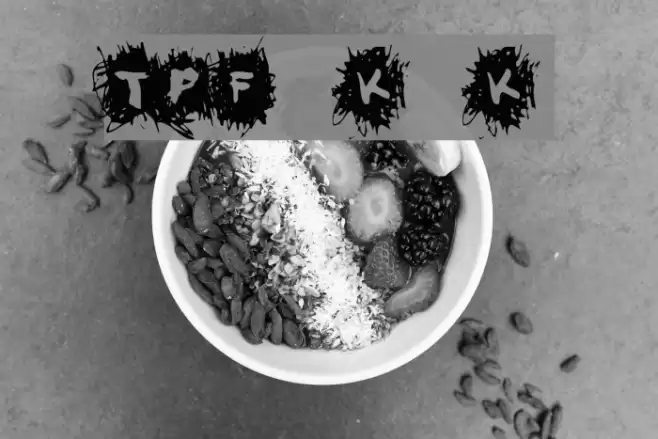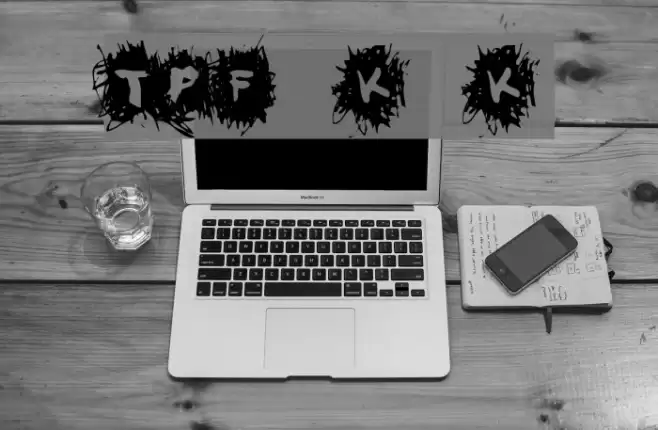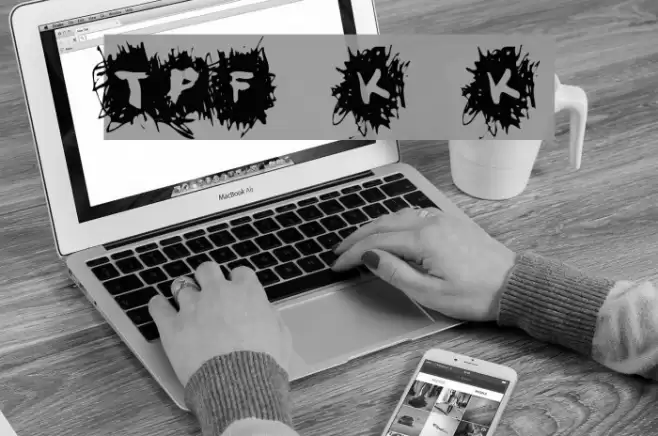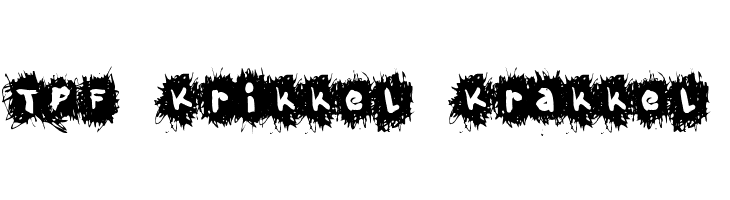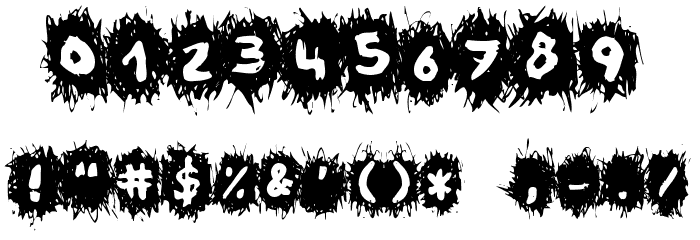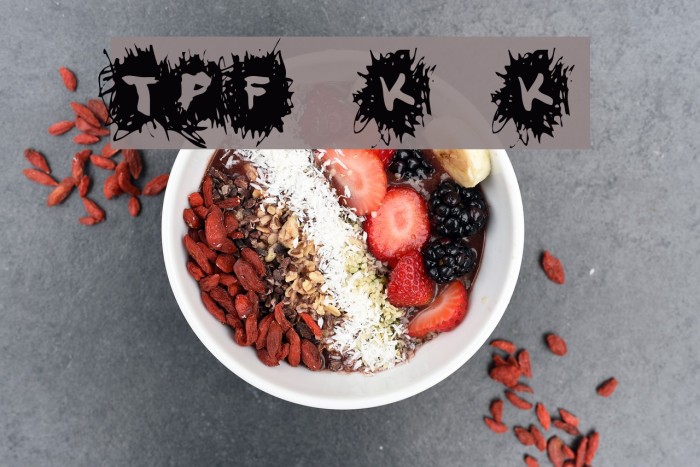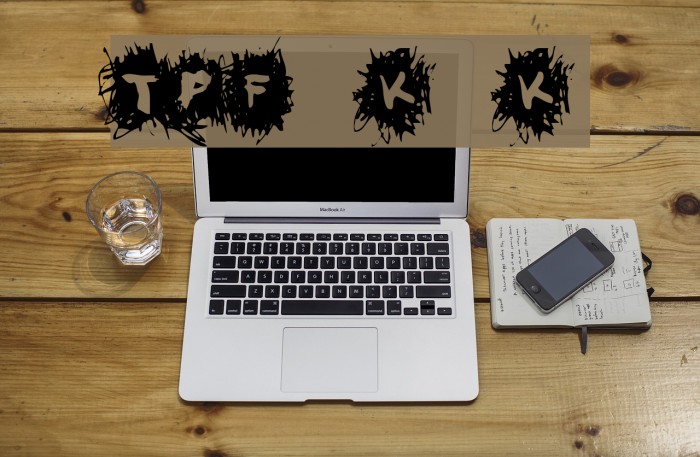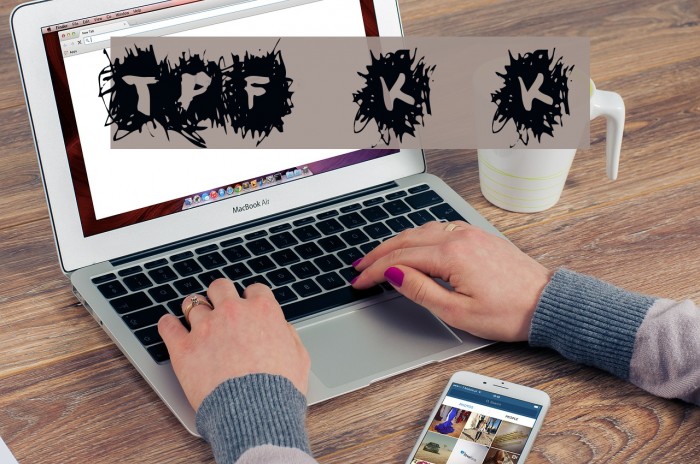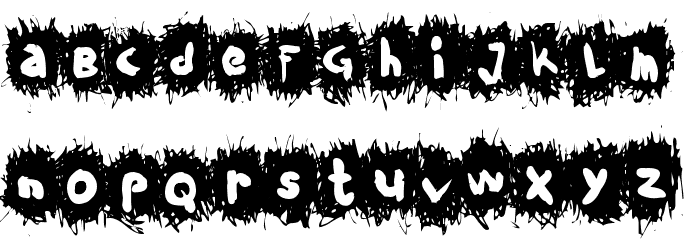
TPF Krikkel Krakkel Font
TPF Krikkel Krakkel Description
This font features a highly decorative and chaotic design, with each character appearing as if it's been scribbled or scratched out. The letters are bold and stand out against a dense, jagged background, creating a striking contrast. The style is reminiscent of graffiti or urban art, with an edgy and rebellious vibe. Each character is unique, contributing to the overall dynamic and energetic feel of the font. The irregular outlines and rough texture give it a hand-drawn appearance, making it ideal for projects that require a bold statement or an artistic touch.
A bold, chaotic, and graffiti-like font with a hand-drawn appearance from Handwritten fonts.
- Proposed Projects: Ideal for album covers, street art posters, edgy branding, or any project needing a rebellious and artistic flair.